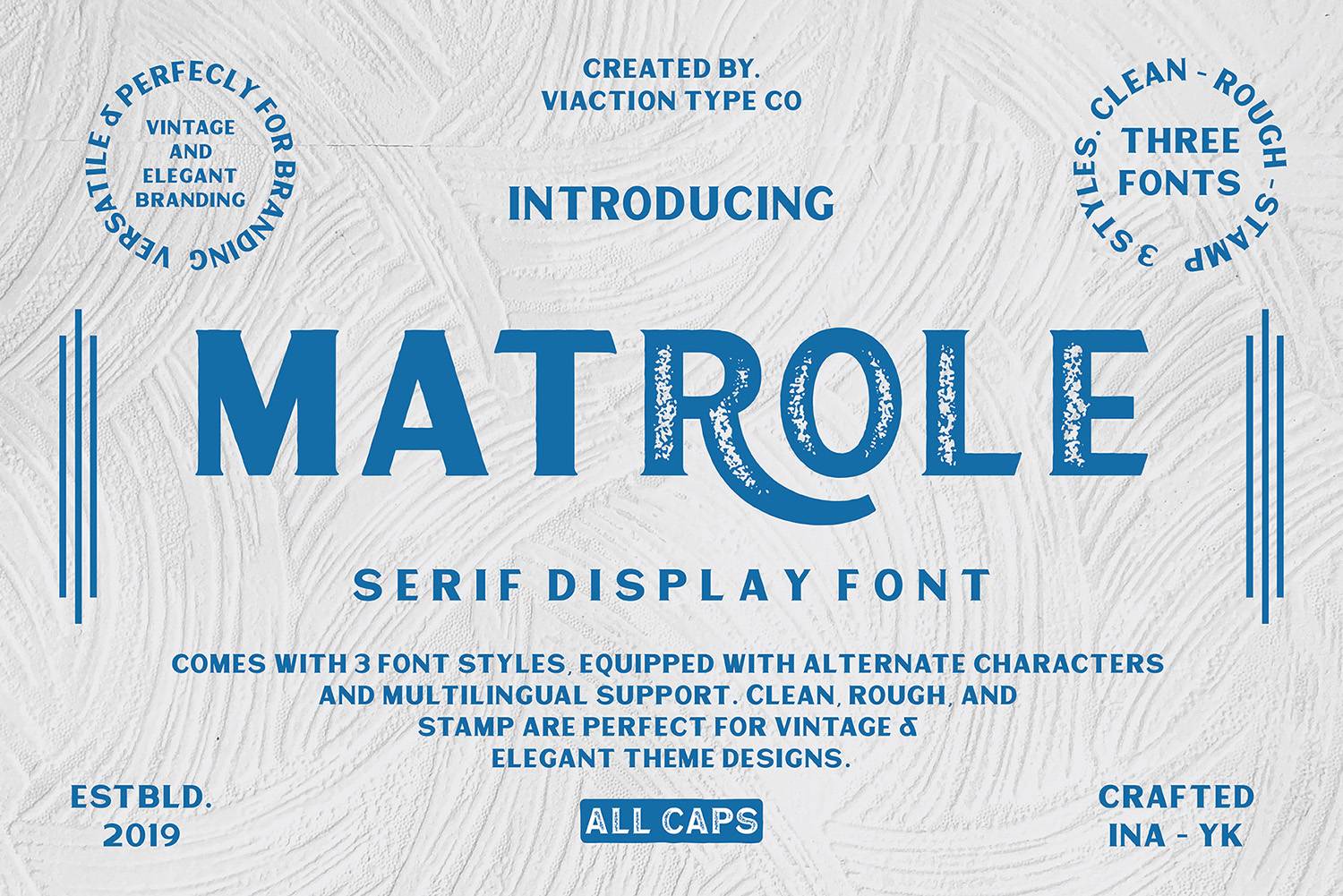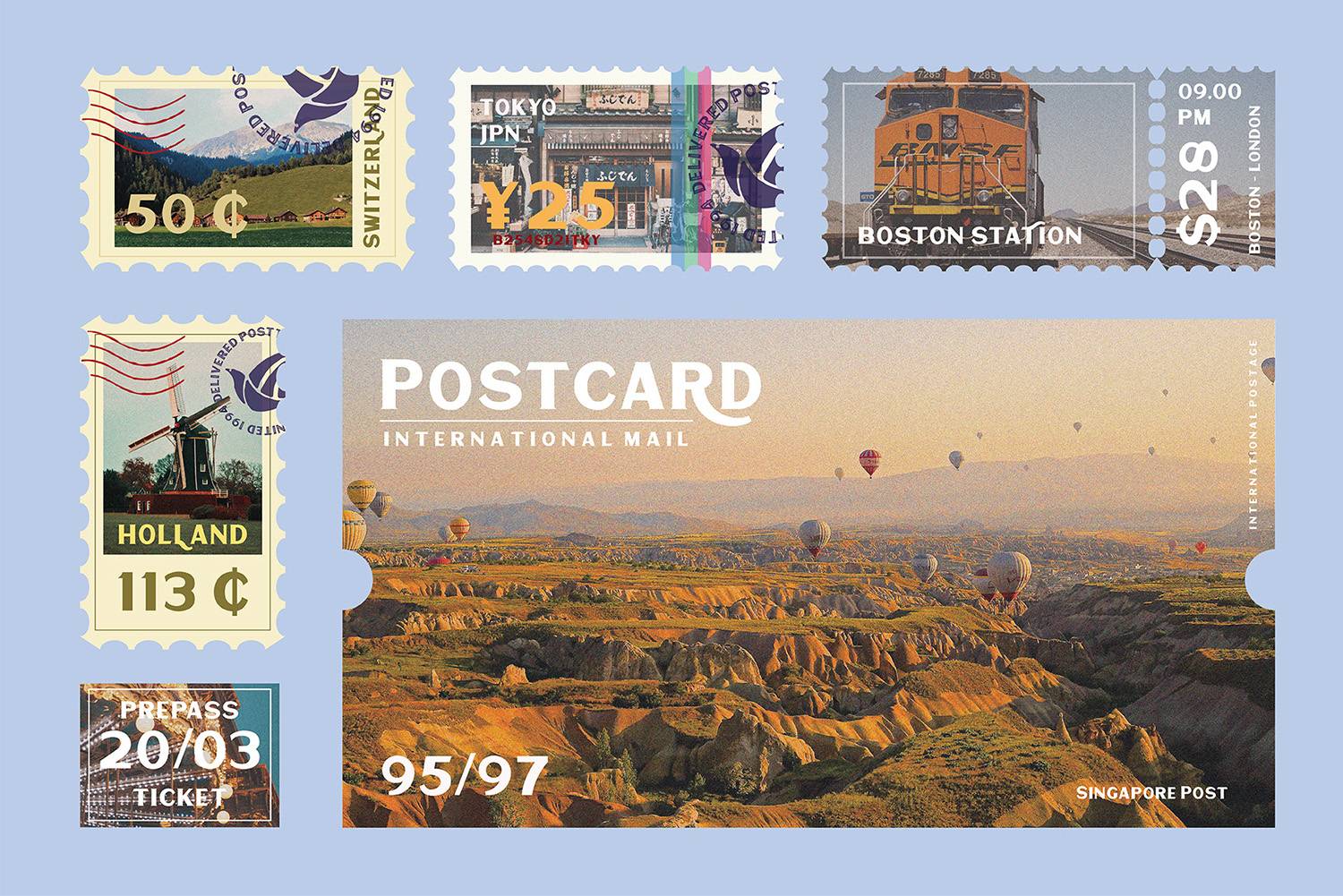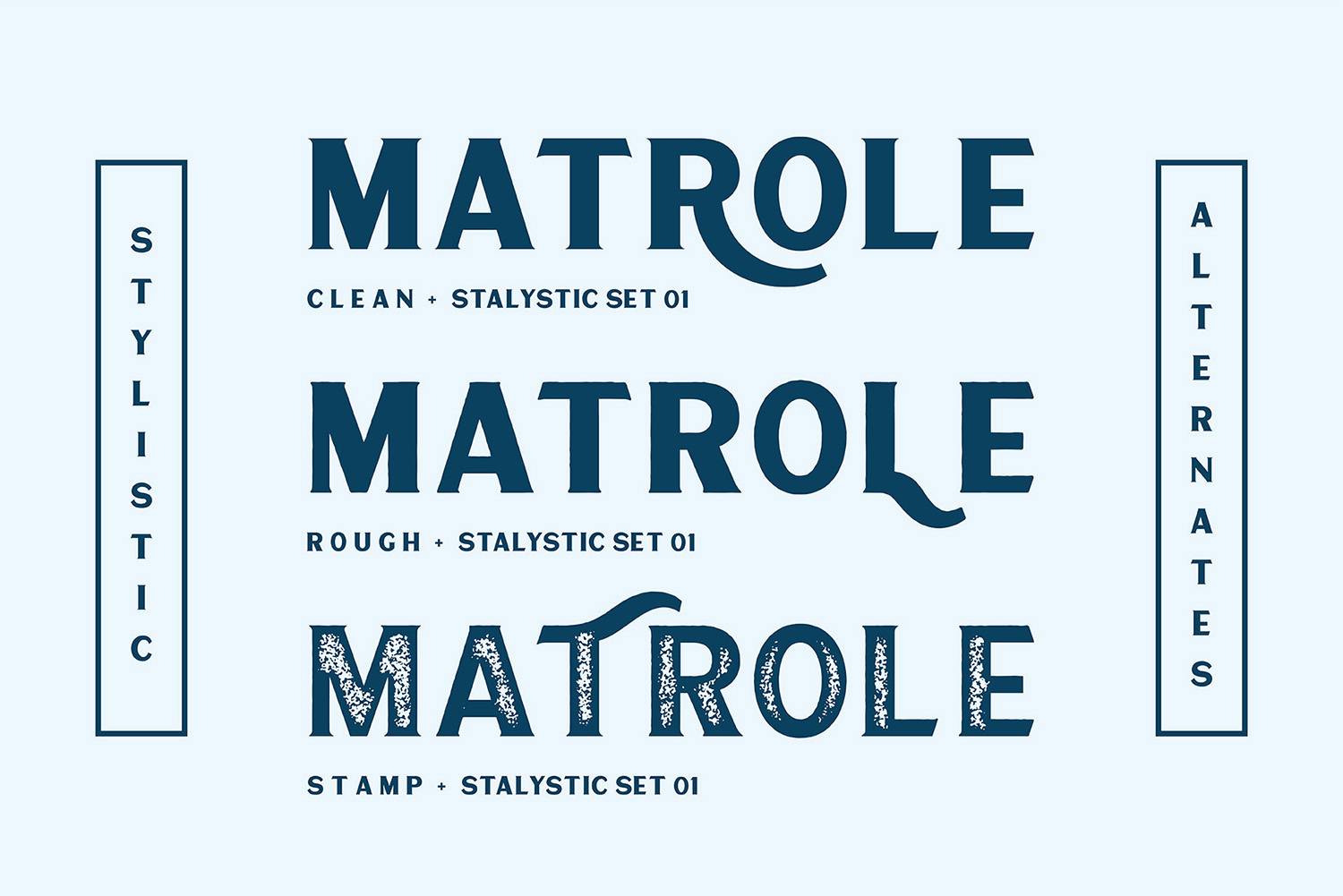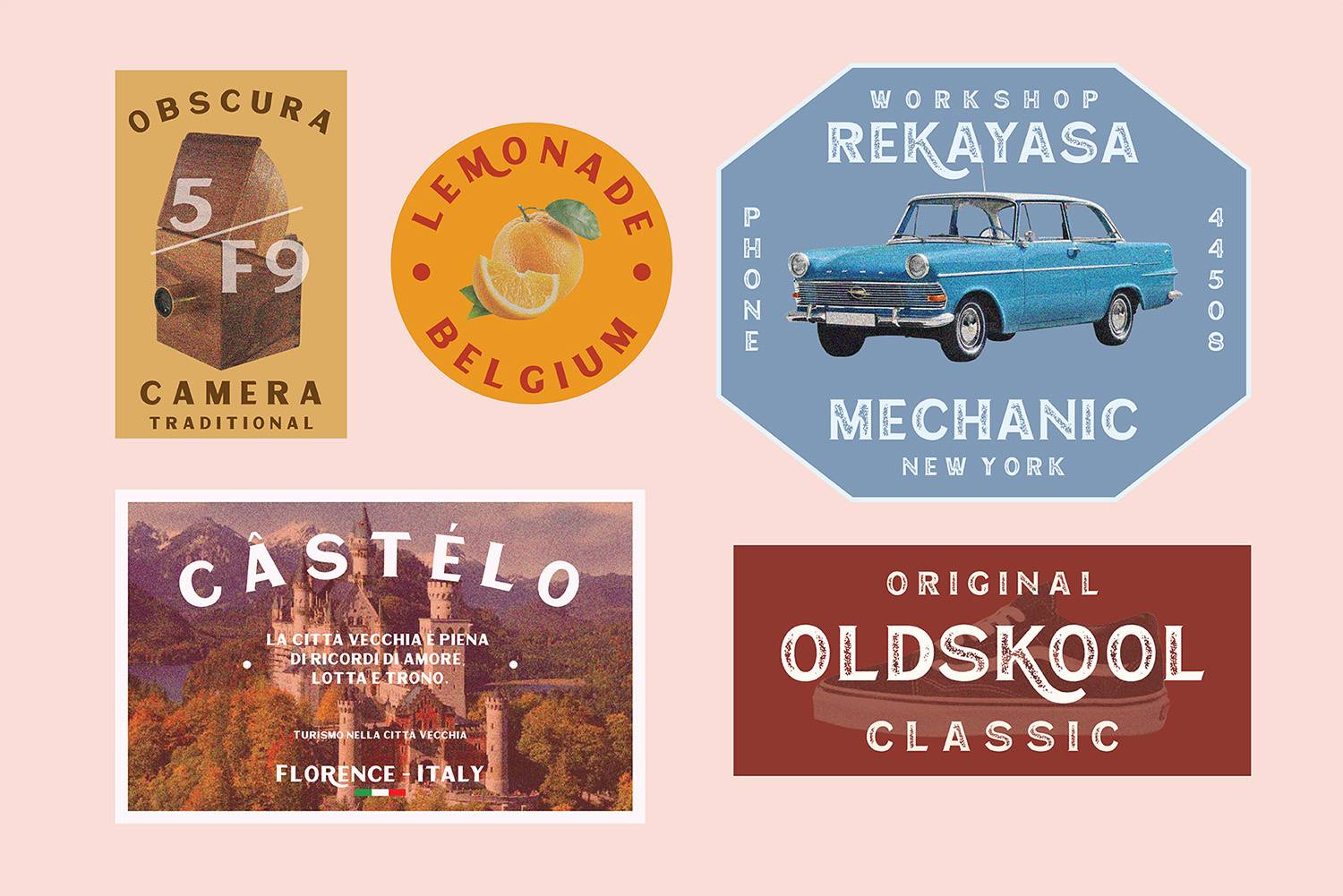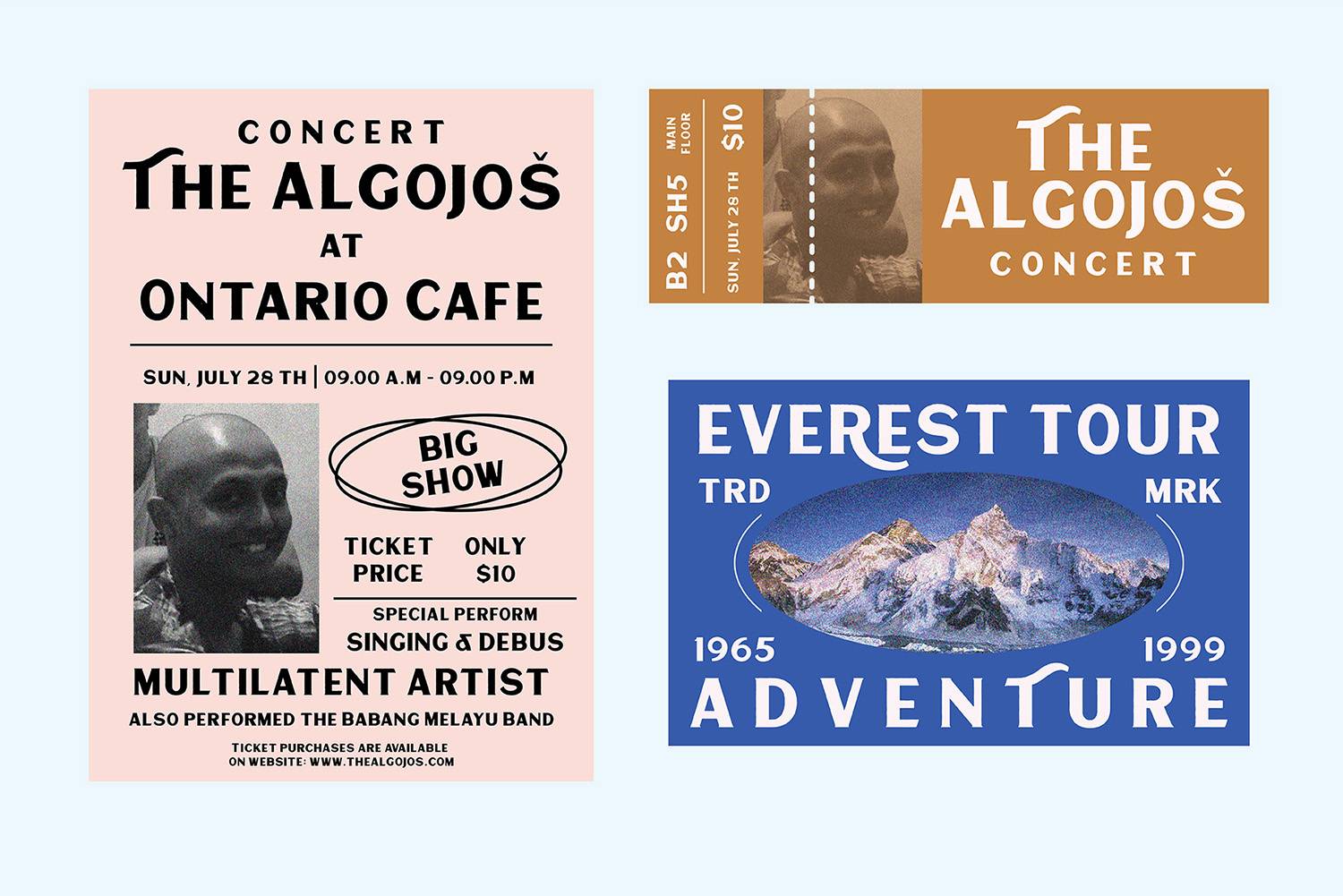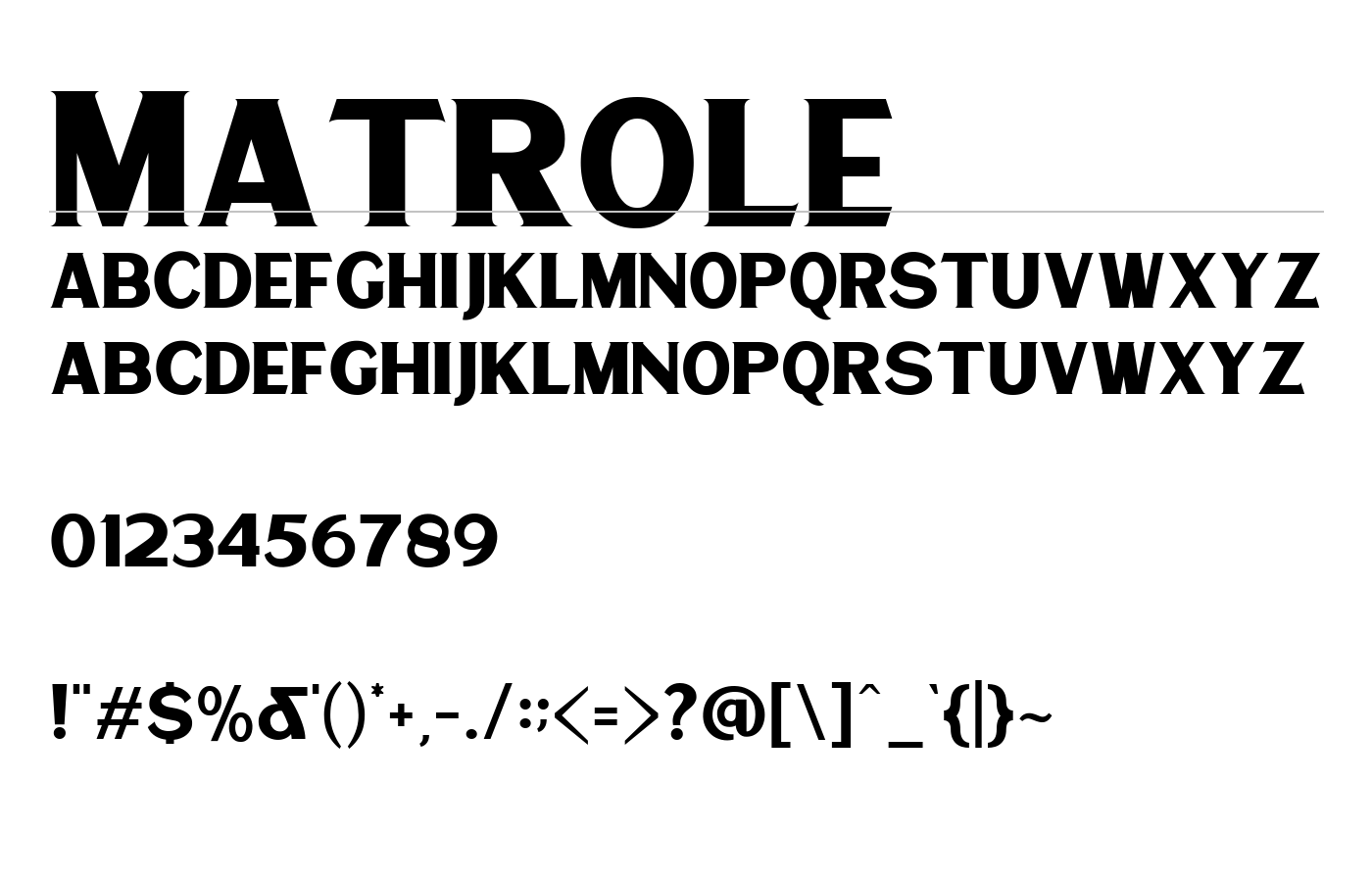
Matrole is a bold serif font with strong contrast between thick and thin strokes, characterized by sharp, bracketed serifs and a classic modern feel. Its uppercase letterforms are sturdy and striking, making it ideal for impactful headlines, logos, and editorial designs that require an elegant yet authoritative presence. This font works well in fashion, luxury branding, and high-end packaging where a combination of tradition and boldness is desired.
Matrole Font
About Matrole Font
| Font family | Matrole Font |
| Designer | Lukman Hidayat "Viaction Type" |